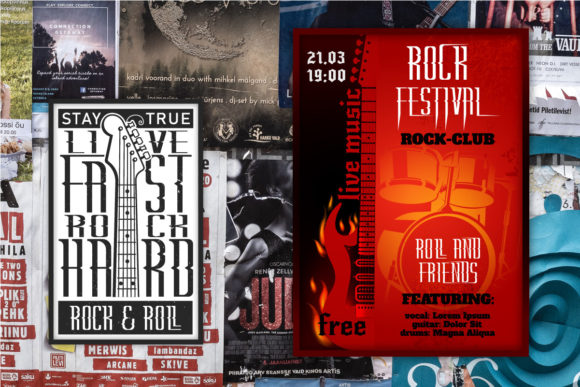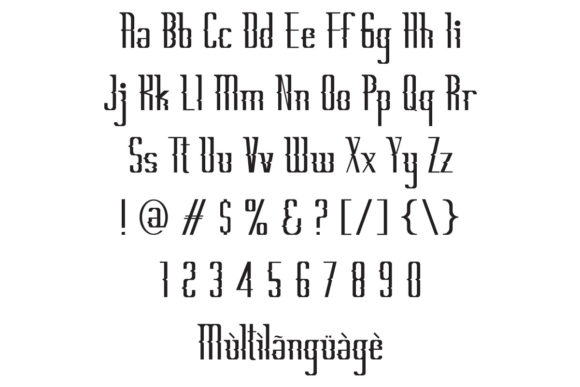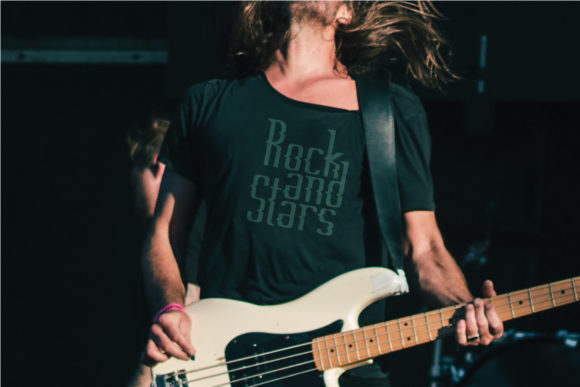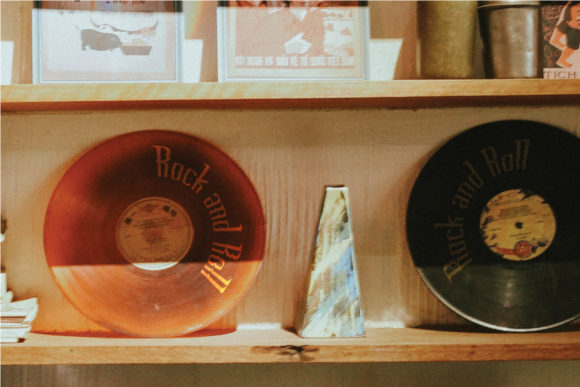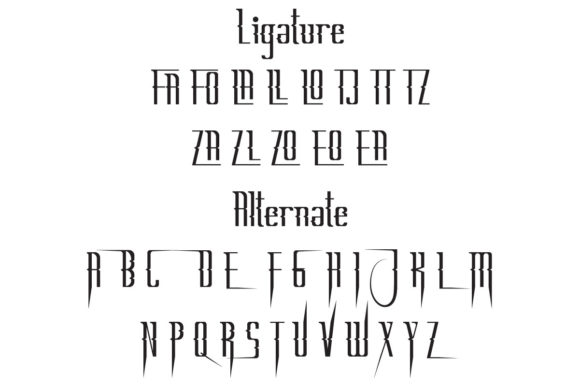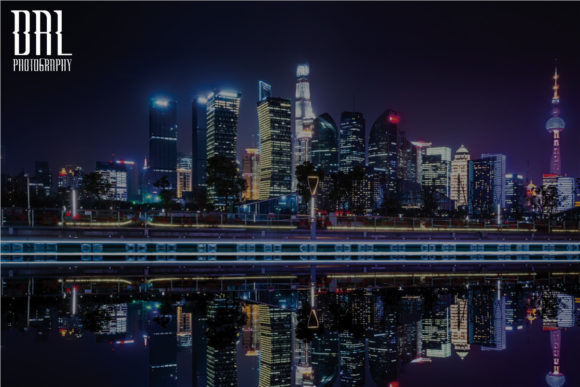
- ✅ Cool and Assertive: Foxspeed Font has a unique, edgy vibe that’s perfect for making a statement.
- ✨ PUA Encoded: With PUA encoding, accessing glyphs and swashes is a breeze, giving you tons of creative freedom.
- 💥 Versatile: From cards and branding to labels and more, Foxspeed can elevate a wide range of crafting ideas.
A Few Quirks to Consider
While Foxspeed Font is amazing, there are a few things to keep in mind:
- ⚠️ Limited Use Cases: As a display font, Foxspeed works best in large sizes and may not be suitable for body text.
- 🤔 Some Swashes May Overlap: Be mindful of how swashes interact with other design elements to avoid visual clutter.
The Story Behind Foxspeed Font
While the true origins of Foxspeed Font are shrouded in mystery, it’s clear that its designer was on a mission to create a font that would make a statement. With its bold, assertive lines and edgy aesthetic, Foxspeed is the perfect choice for designers who want to add a little excitement to their work.
Q: What is PUA encoding, and why is it important?
A: PUA (Private Use Area) encoding allows font designers to include additional glyphs and swashes that can be accessed easily in design software. This means you get more creative freedom with Foxspeed Font! 😊
Q: Is Foxspeed Font suitable for body text?
A: As a display font, Foxspeed works best in large sizes. While you can use it for body text, it may not be the most readable choice.